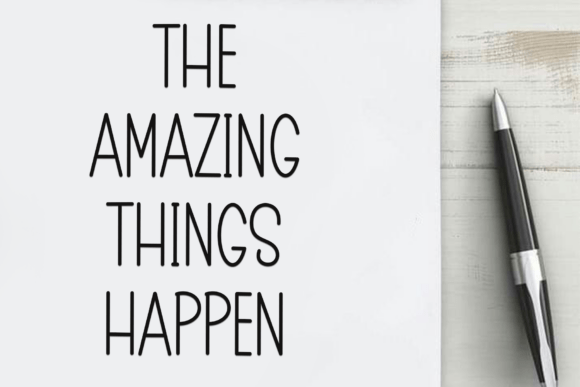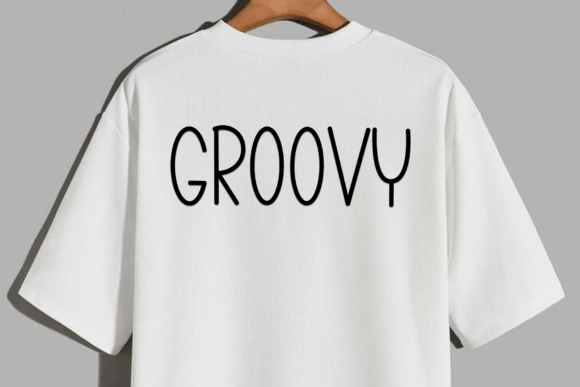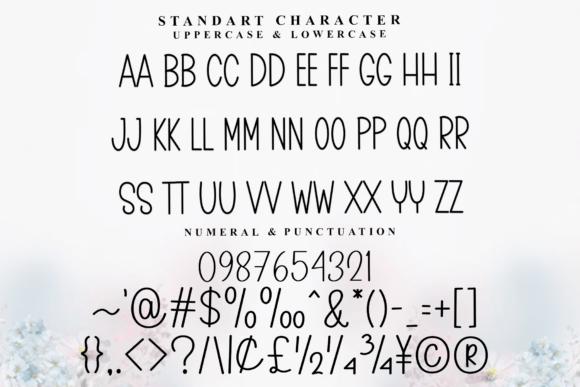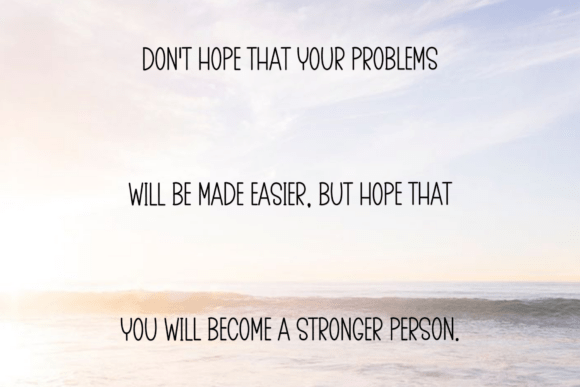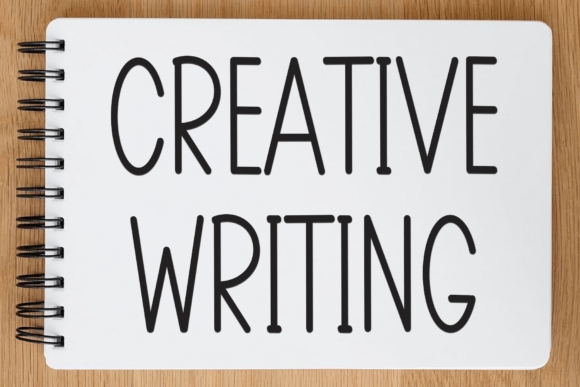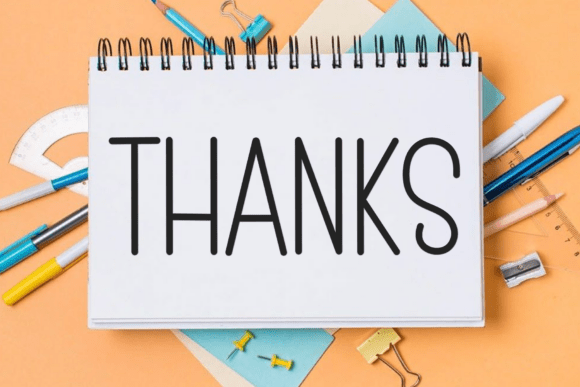
Introduction to Maraton Font
Elevate your editorial designs with Maraton, a simple sans-serif font defined by its elegant, condensed proportions.
This typeface features tall, slender letterforms with a consistent monoline weight, offering a sophisticated and airy aesthetic that remains highly legible Its minimalist structure makes it an exceptional choice for modern magazine layouts, high-end fashion branding, architectural portfolios, and minimalist web headers.